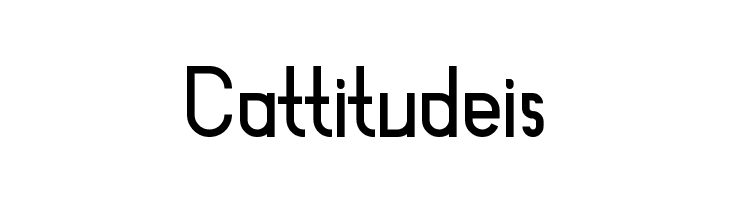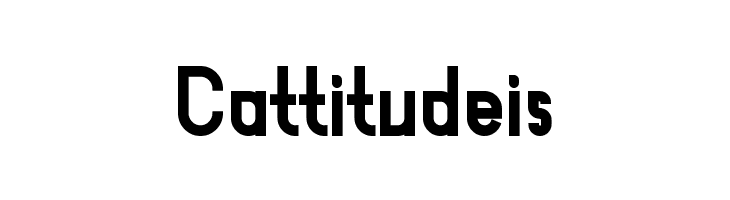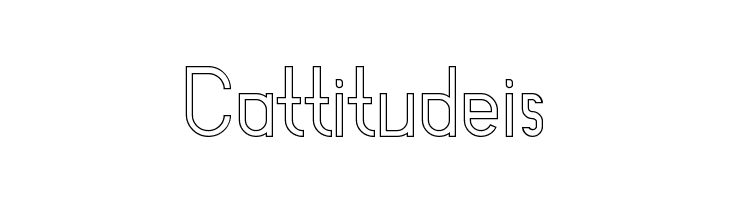
A geometric, modern font with bold, structured uppercase and rounded lowercase letters.
A bold, geometric font with a modern and structured design.
A modern, geometric outline font with clean lines and a futuristic feel.